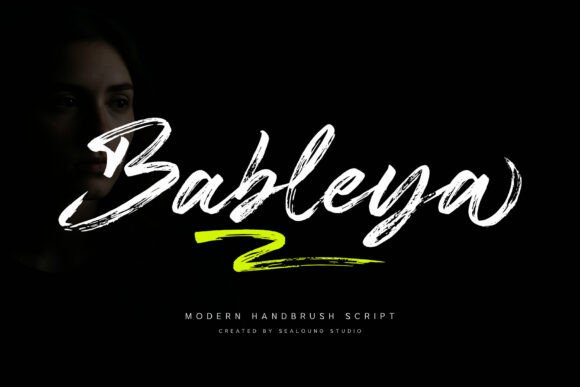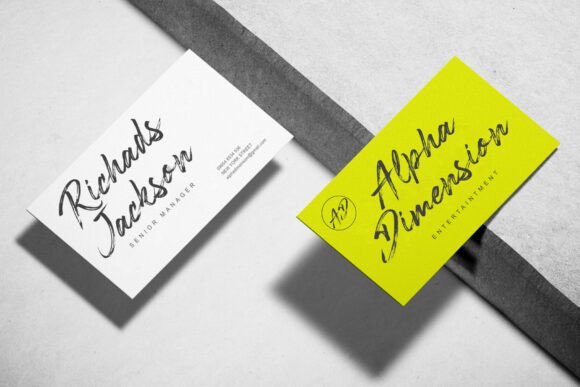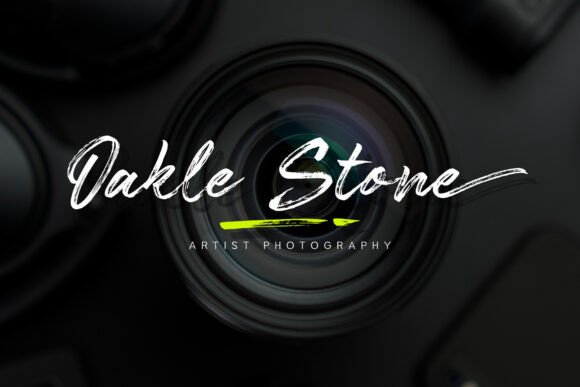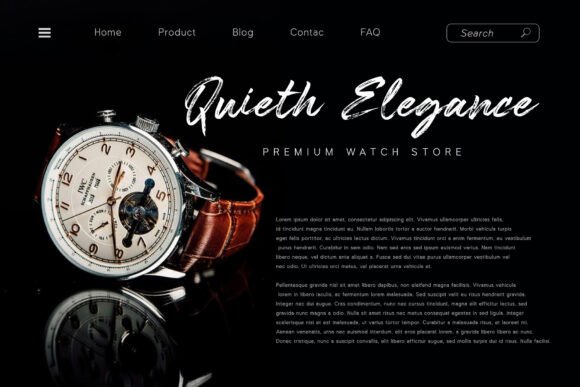
Bableya Font: Modern Handwritten Brush Script for Inspiring Branding
About the Bableya Font
Make a bold statement with Bableya Font, a powerful and memorable font. Bableya is a stylish modern brush font with charming details. Its brush strokes bring a friendly and engaging feel, making it a great choice to elevate your design projects.
Bableya is perfect for branding, logos, wedding invitations, social media content, advertising, product packaging, product design, labels, photography, watermarks, stationery, and any project that needs a handwritten touch.
Bableya’s friendly, informal style works best in headlines, short text blocks, and branding applications where a handwritten feel is desired. It excels in projects needing a touch of personality, such as logos for boutiques, social media graphics, or wedding invitations. However, its less-than-optimal legibility makes it unsuitable for body text or UI elements requiring extended reading.
For a balanced design, pair Bableya with a clean sans-serif like Montserrat for body copy or a geometric sans-serif like Futura for a more modern contrast. A classic serif like Garamond can add sophistication if a more traditional feel is desired.
Bableya projects a playful yet sophisticated personality, best suited to brands emphasizing approachability and creativity without sacrificing a level of polish.
Bableya Font Usage Examples
Bableya Font Example